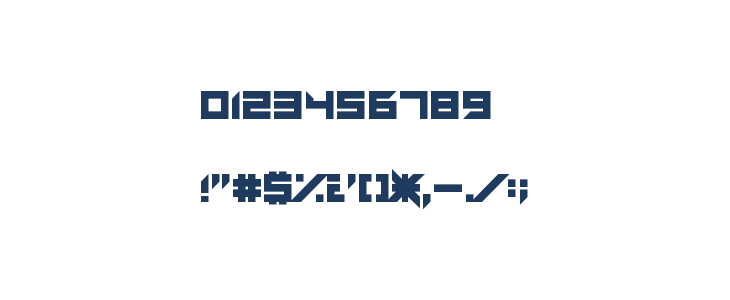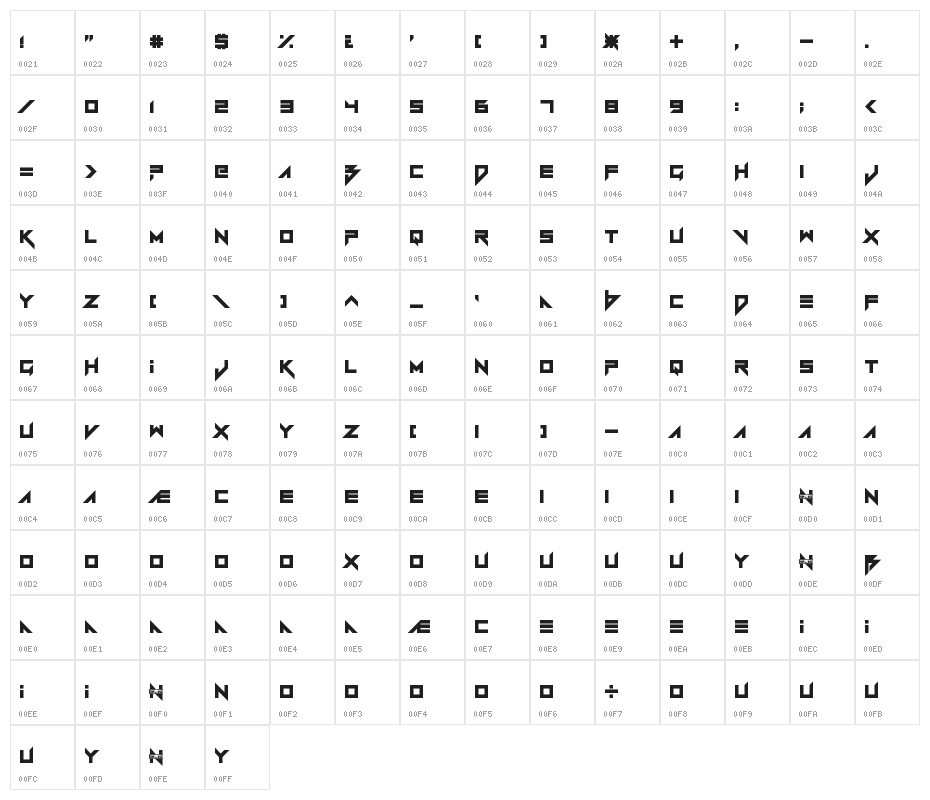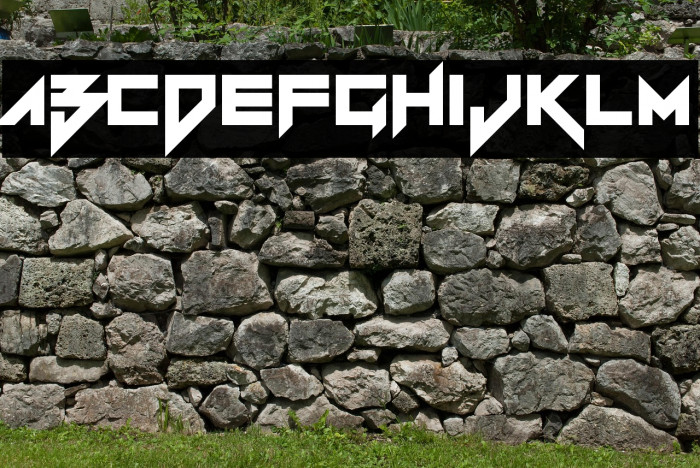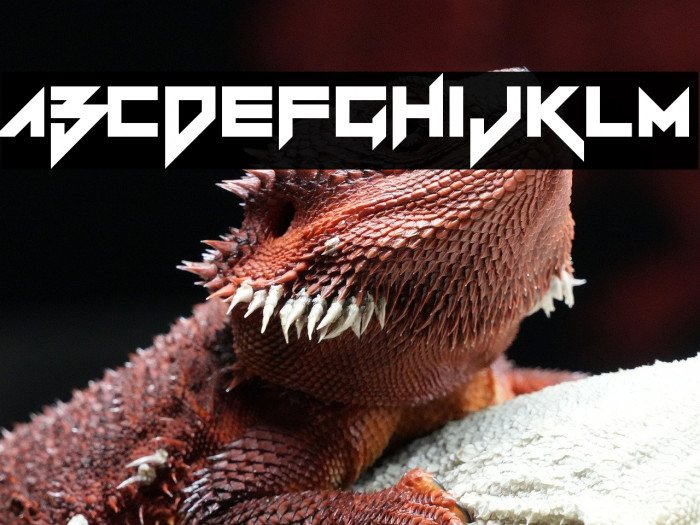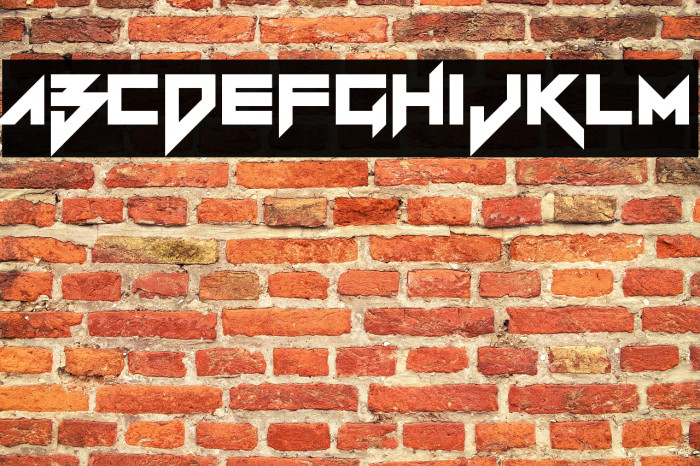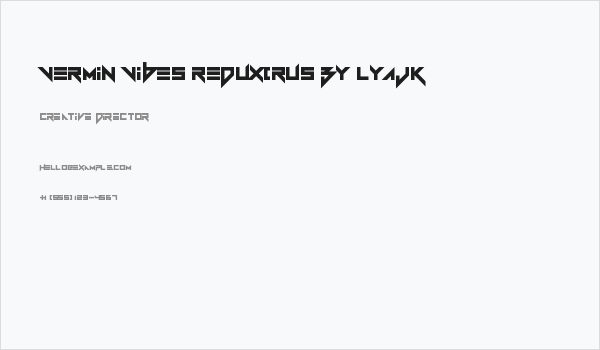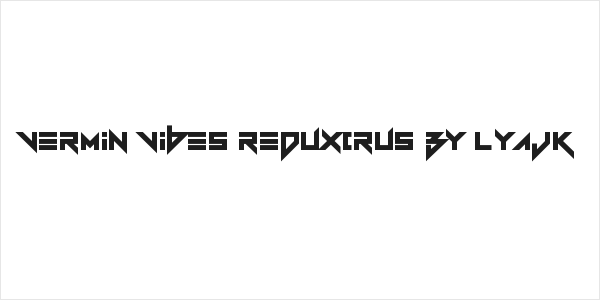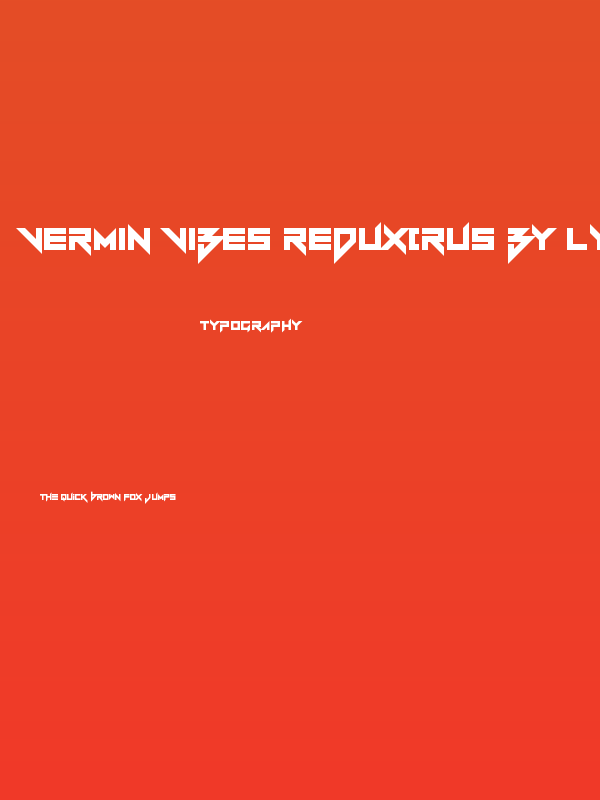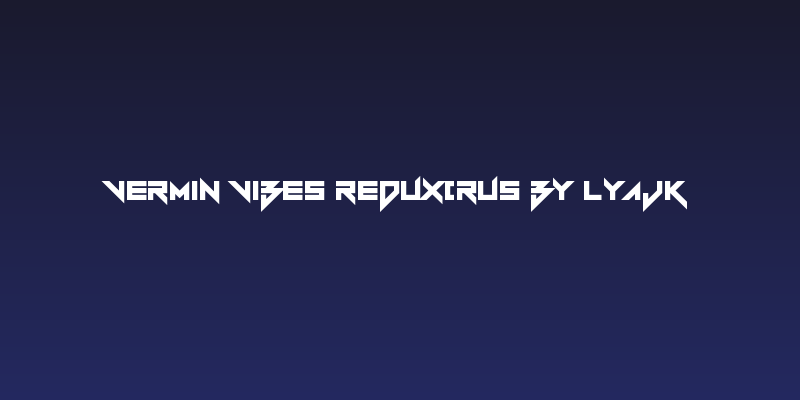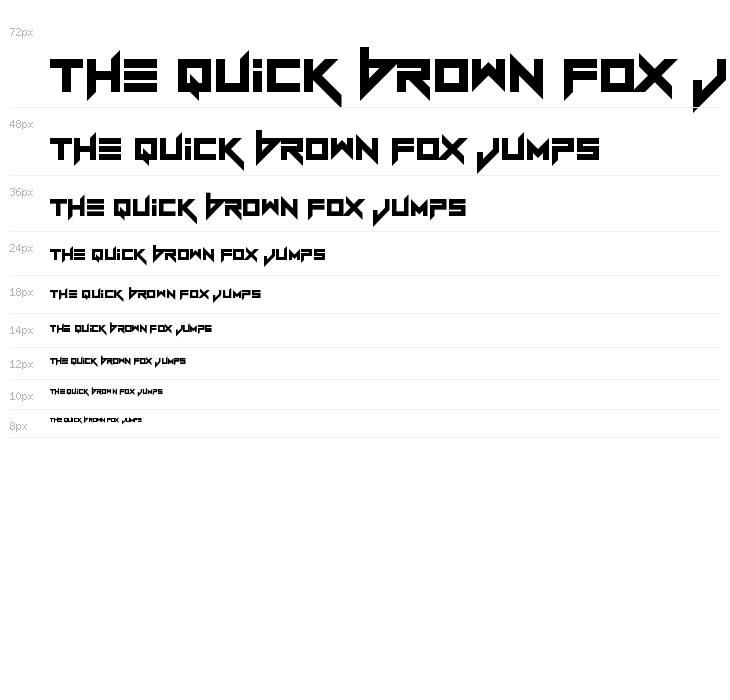
Vermin Vibes Redux(RUS BY LYAJK Font
Vermin Vibes Redux(RUS BY LYAJK Description
This font features a bold, angular design with a futuristic and edgy aesthetic. The characters are constructed with sharp, geometric shapes, giving them a dynamic and aggressive appearance. The uppercase and lowercase letters maintain a consistent style, with pointed edges and a strong visual impact. The numerals and special characters follow the same design principles, ensuring uniformity across the typeface. This font is ideal for projects that require a modern, tech-inspired look, such as video game titles, sci-fi movie posters, or edgy branding materials.